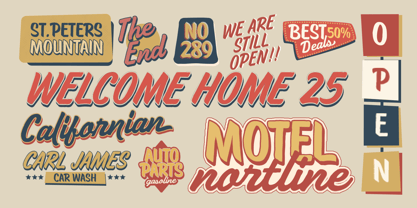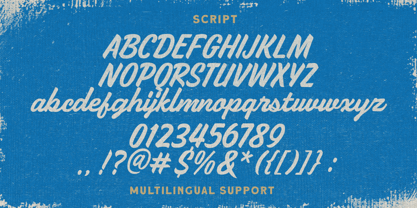
Oldtown Signer
von Letterhend
Die Schriftfamilie Oldtown Signer wurde von Hendry Juanda entworfen und von Letterhend veröffentlicht. Oldtown Signer enthält 6 Stile und Familienpaketoptionen.
Oldtown Signer is a sign painting typeface with handcrafted that will bring you back to 60s feel. The swashes makes this font looks great for retro lettering which you can create in a sec! This font perfectly made to be applied especially in logo, and the other various formal forms such as invitations, labels, logos, magazines, books, greeting / wedding cards, packaging, fashion, make up, stationery, novels, labels or any type of advertising purpose.
Features :
• Uppercase & lowercase
• Numbers and punctuation
• Multilingual support
Designer: Hendry Juanda
Herausgeber: Letterhend
Foundry: Letterhend
Eigentümer des Designs: Letterhend